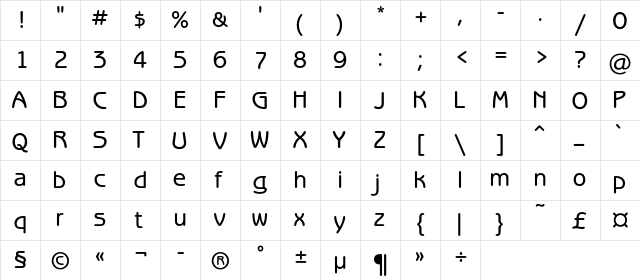
BenguiatGothicHeavyC Regular
Design Context for BenguiatGothicHeavyC Typeface
BenguiatGothicHeavyC takes a clean, functional approach — its unadorned letterforms prioritise legibility and work reliably across screen and print environments.
Font Pairing: Works well alongside a characterful serif or display font that can carry the expressive load while BenguiatGothicHeavyC handles the functional copy.
Pro Tip: Use BenguiatGothicHeavyC for UI labels, navigation, and short-form body copy where clean legibility is the priority.